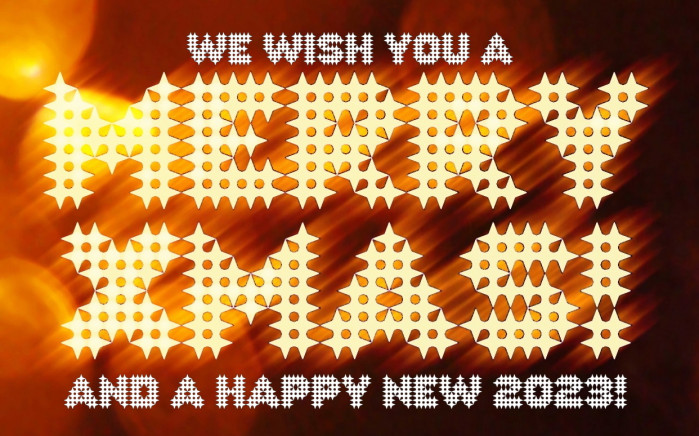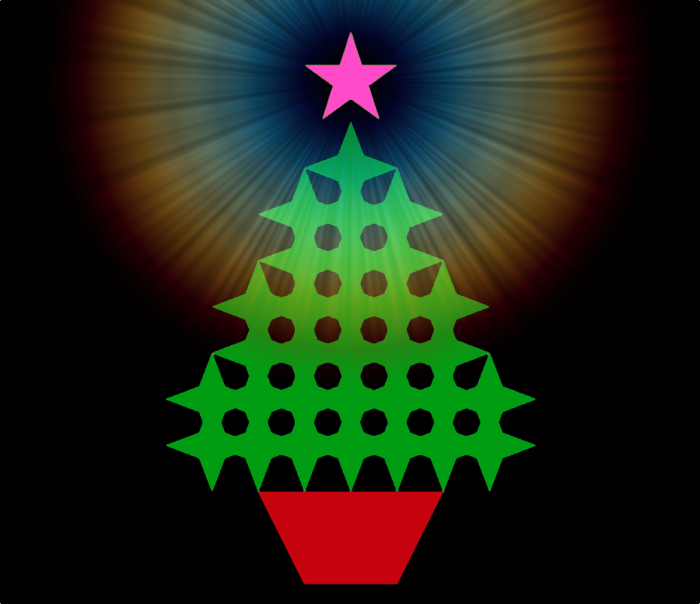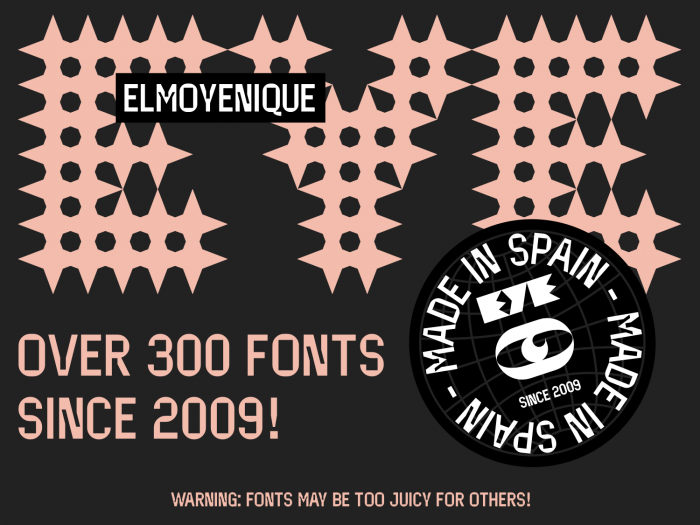
Years ago, a small font from 2008 caught my eye. Now I've dared to use its structure to modify and complete it, and thus create a new visual experiment. I'm sorry, diacritics are the weak point. Hope you like it. ¡Y Feliz Navidad a todos, amigos!